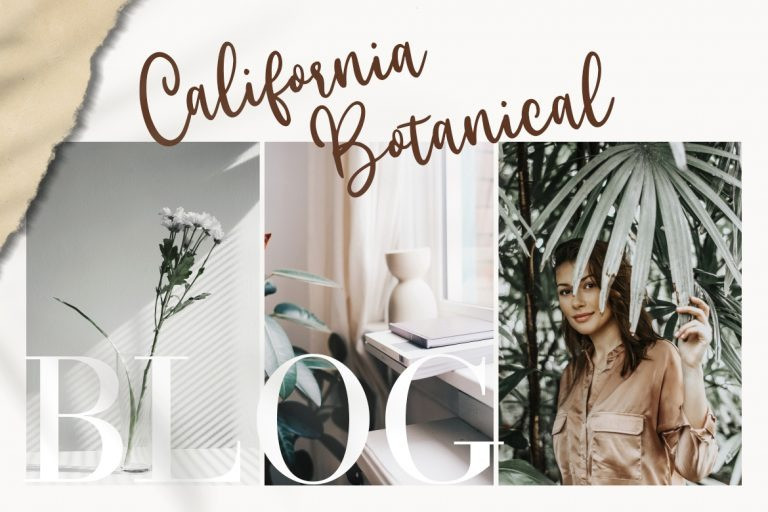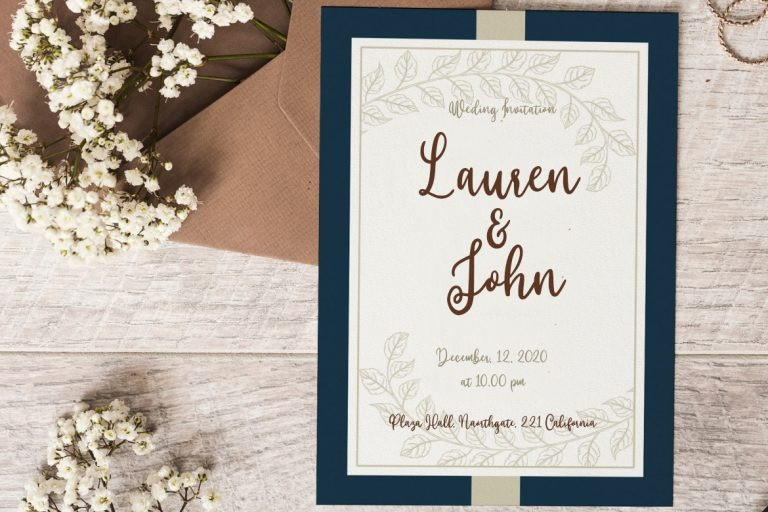
Lovin Florist Script Font
Lovin Florist is mazing hand lettering look attractive and natural!
Every single letters have been carefully crafted to make your text looks beautiful.
This font includes 306 glyphs, including 104 alternates character.
It has over 60 extended Latin characters for language support.
This font is suitable for Wedding invitation, Love themed design, mugs, christmas cards, poster design etc,